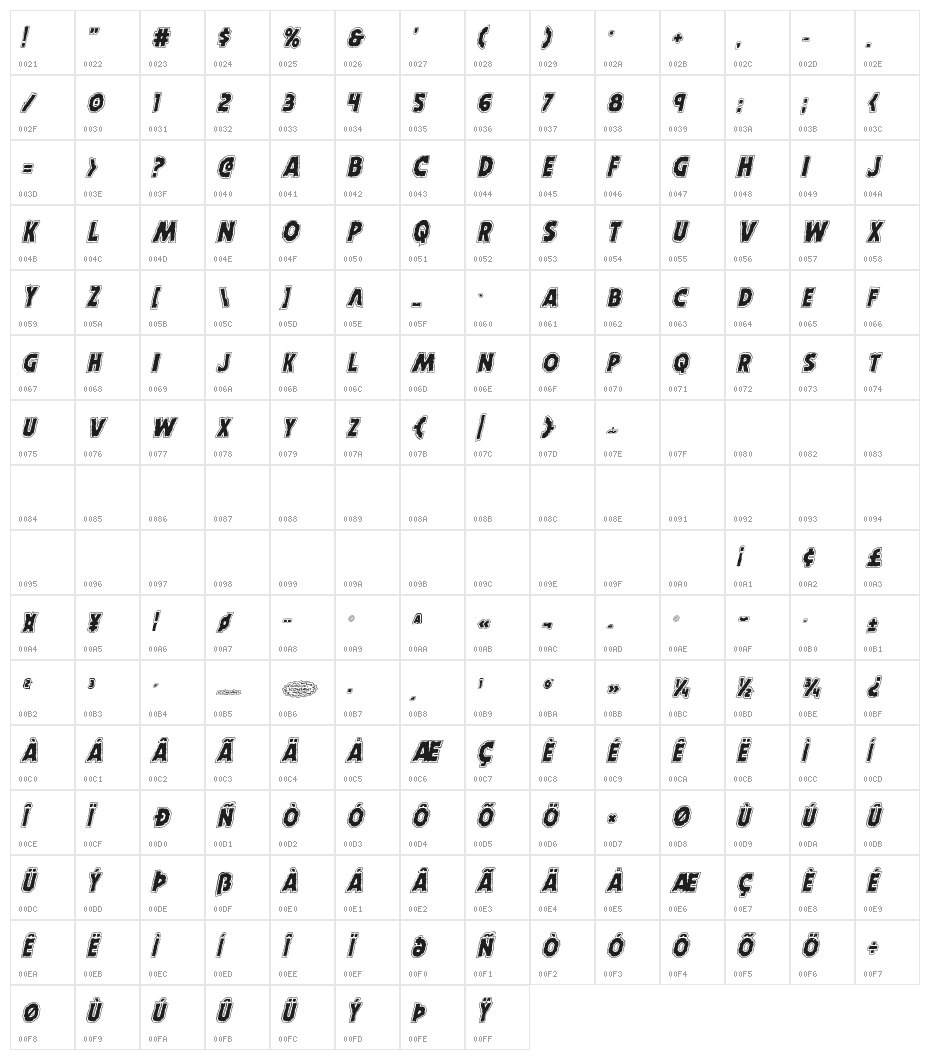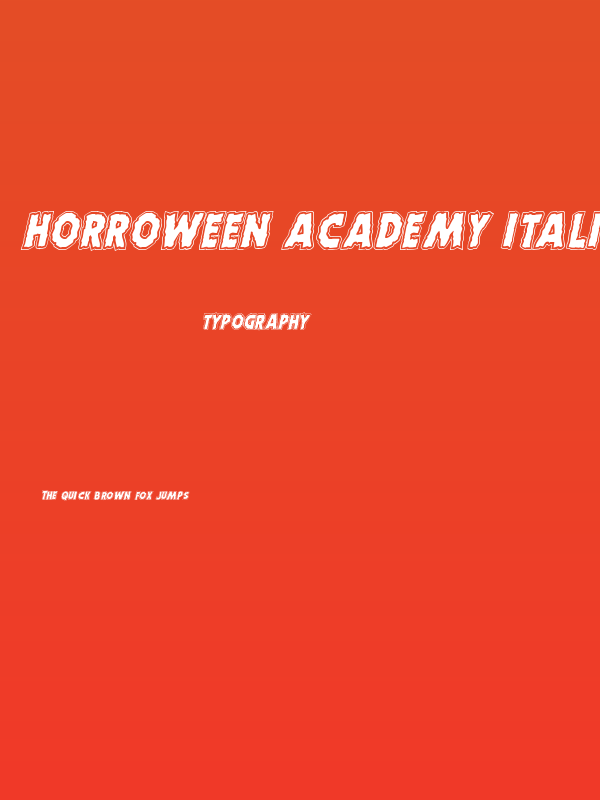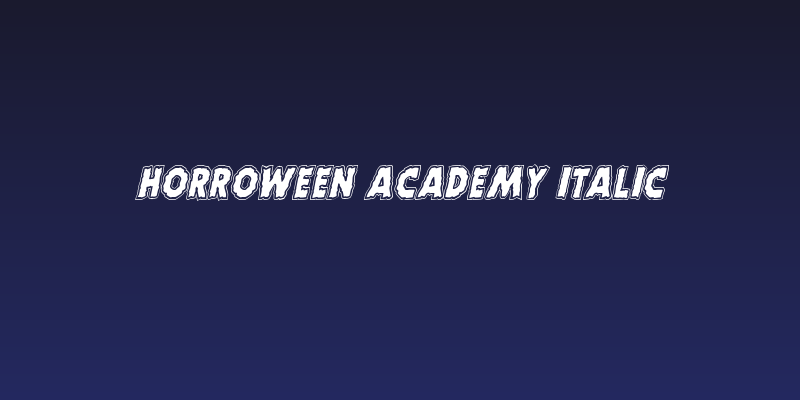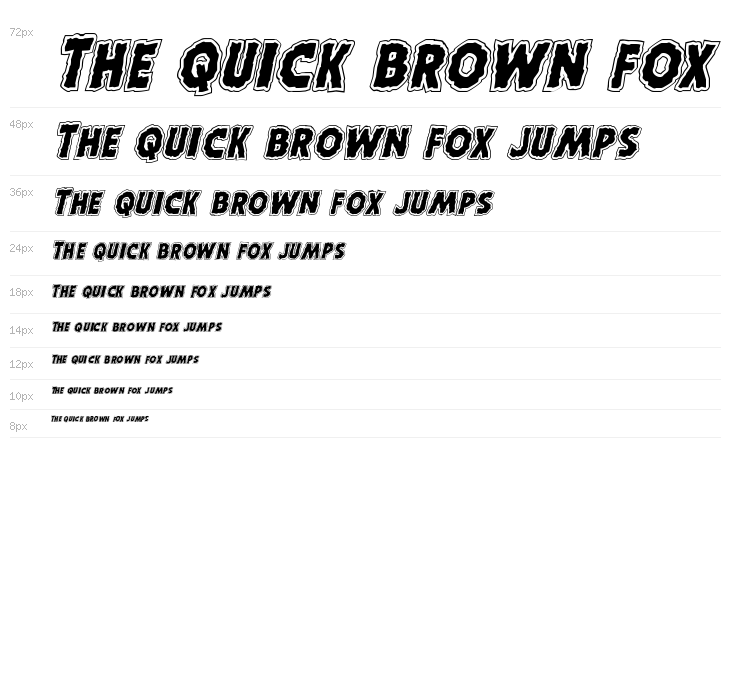
Horroween Academy Italic Font
Horroween Academy Italic Description
This font features a bold and dramatic style with a spooky, Halloween-inspired theme. The letters are heavily stylized with jagged edges and a shadow effect, giving them a three-dimensional appearance. The uppercase and lowercase letters maintain a consistent design, with each character exhibiting a playful yet eerie vibe. The numbers and special characters follow the same thematic style, ensuring a cohesive look across all text elements. This font is perfect for creating eye-catching titles and designs that require a touch of the macabre.
| Proposed Projects | Perfect for Halloween-themed posters, party invitations, horror movie titles, and spooky event branding. |